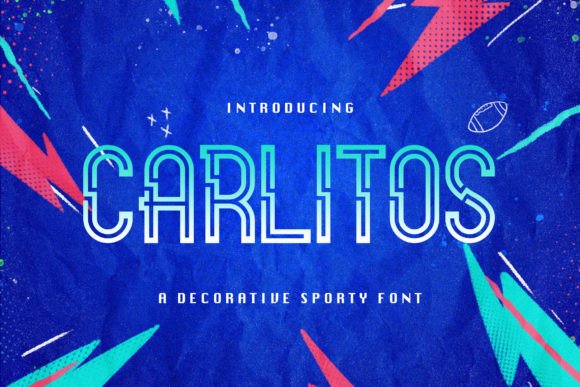
Step into the world of Carlitos Font, a modern and energetic display font crafted by StringLabs. With its sporty and playful vibe, Carlitos is here to energize your creative ventures.
Fuel your passion for sports design with Carlitos Font. This captivating typeface is the ultimate choice for capturing the dynamic essence of sports. Whether it's sleek football jerseys, vibrant basketball graphics, or eye-catching soccer posters, Carlitos will bring your sports designs to life.
Design with enthusiasm and create remarkable mini LED displays that leave a lasting impression. With Carlitos Font as your ally, transform ordinary displays into dazzling masterpieces. Its unique and captivating style is guaranteed to command attention and ignite excitement among your audience.
Carlitos Font is more than just a font; it's an invitation to express your passion for sports and leave an indelible mark on the world of design. Download Carlitos Font today and unlock a world of creative possibilities. Unleash your sporty spirit and conquer the world of mini LED displays with Carlitos Font.